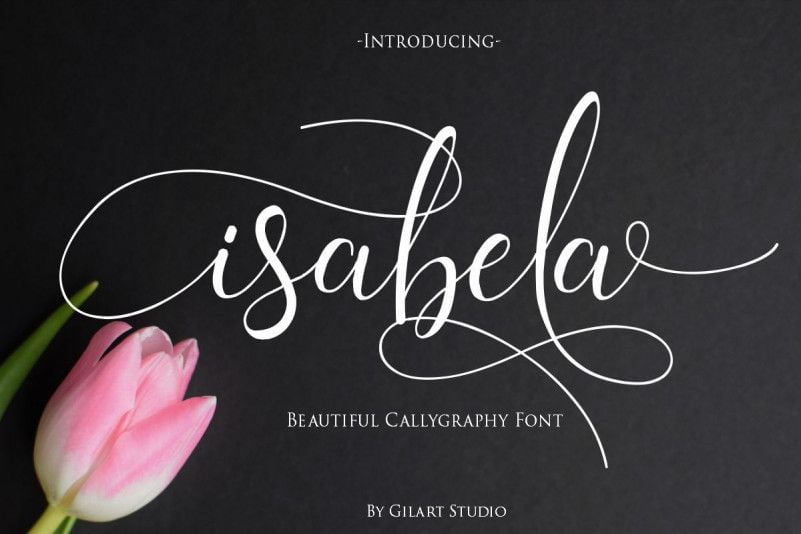
Isabela Calligraphy Font
Hello Font Lovers! This is a new modern calligraphiy font, this typeface has unique swashes that allows you to create beautiful lettering in a snap! it has many stylistic set alternates that you can choose from.
Introducing Isabela Font. It is design and shared by Gilar Studio. It’s a romantic handwritten font featuring stunning and wild swashes. This font perfectly made to be applied especially in logo, and the other various formal forms such as invitations, labels, logos, magazines, books, greeting / wedding cards, packaging, fashion, make up, stationery, novels, labels or any type of advertising purpose.